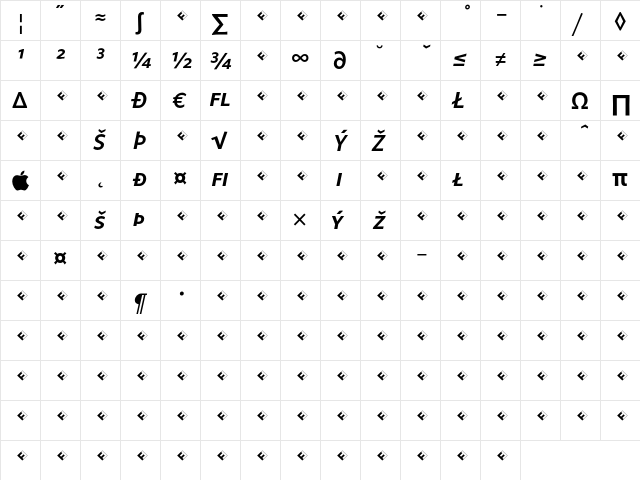
Legato SC Semi Bold Italic Expert Font Preview
Legato SC Semi Bold Italic Expert
Design Context for Legato Typeface
Legato is a composed and adaptable typeface that performs quietly and consistently across a wide range of design contexts. The slanted form adds forward momentum and visual energy. The heavy weight commands attention and anchors typographic hierarchies.
Pro Tip: Use Legato for emphasis, pull quotes, and subheadings where its slanted energy can add rhythm to the layout.